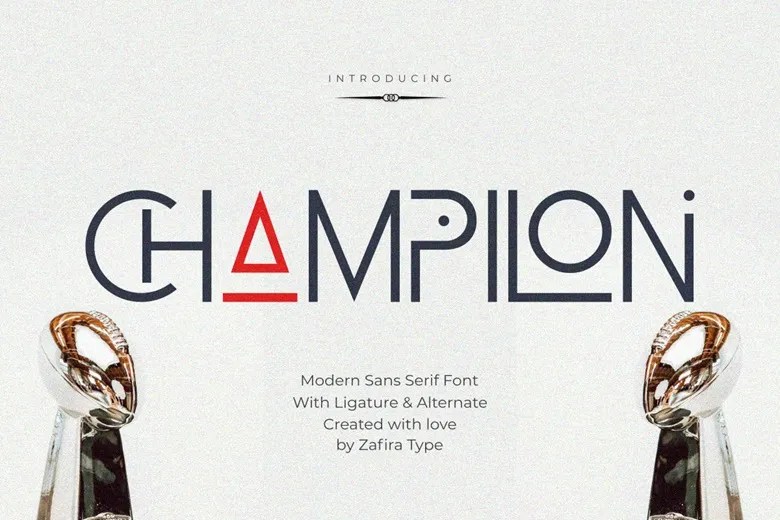
Champilon Font
Champilon is a refined sans serif typeface that blends modern minimalism with humanistic design elements. With its smooth ligatures and alternate characters, this font seamlessly adapts to contemporary design aesthetics, making it a versatile choice for professional and creative projects.
Ideal for branding, business documents, and print materials, Champilon delivers a polished and highly readable appearance. Whether you’re designing corporate stationery, marketing materials, or digital content, this font ensures clarity and sophistication.